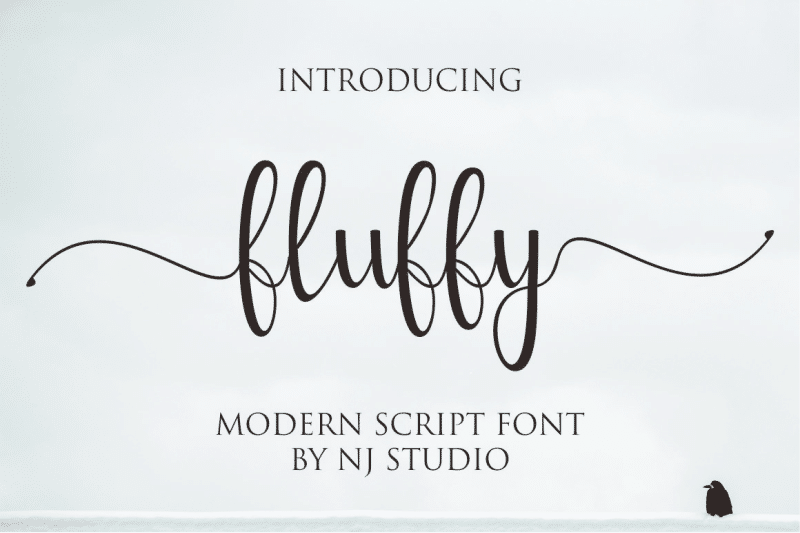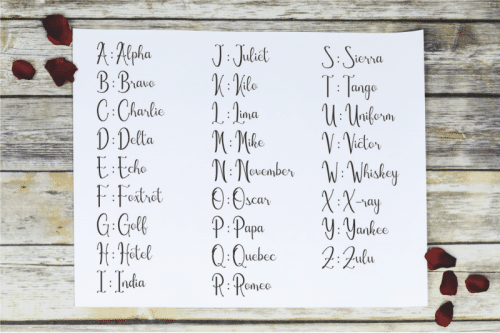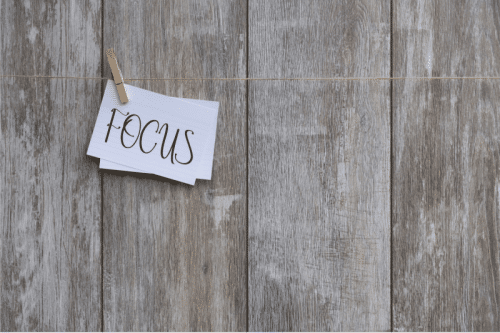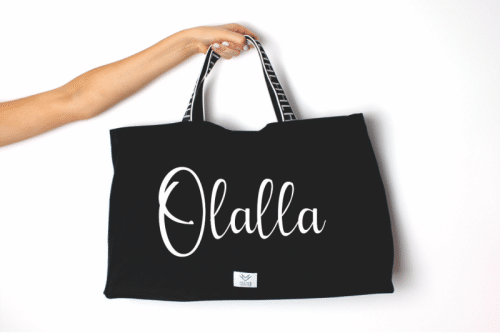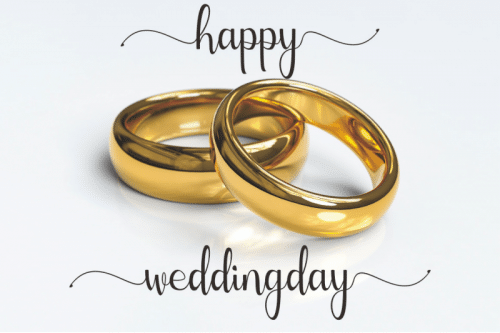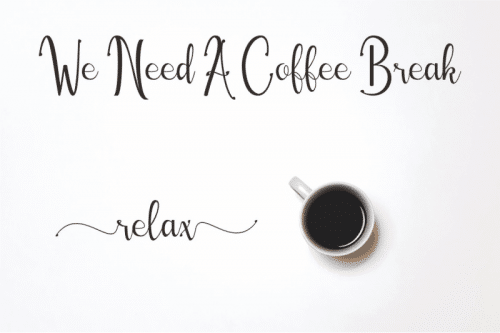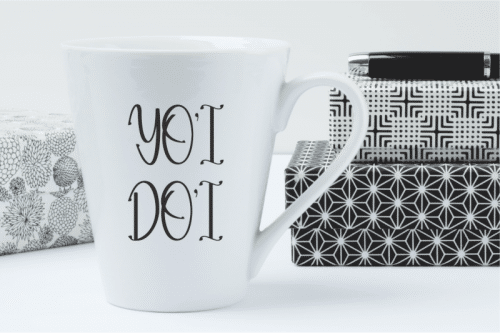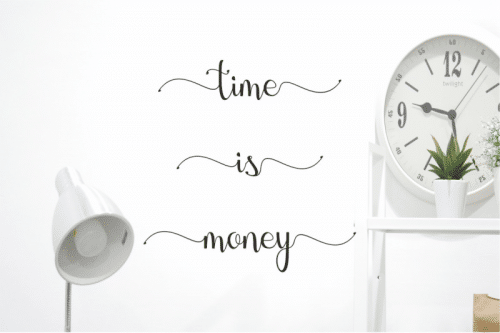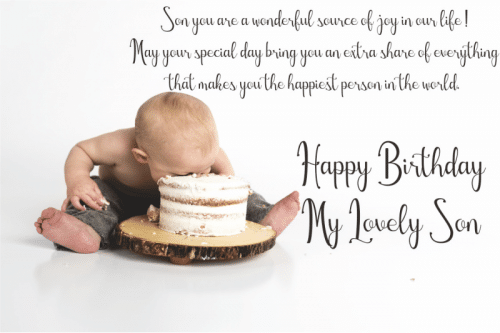
“Fluffy Font” is a romantic calligraphy font with contemporary, sophisticated accents, designed by NJ Studio. Suitable for use in watercolor designs. Such as Novel tittle, Apparel, Invitations, Quotes, Books tittle, Stationery Design, Branding, Logos, Greeting Card, T-shirt, Packaging design, Poster and more.